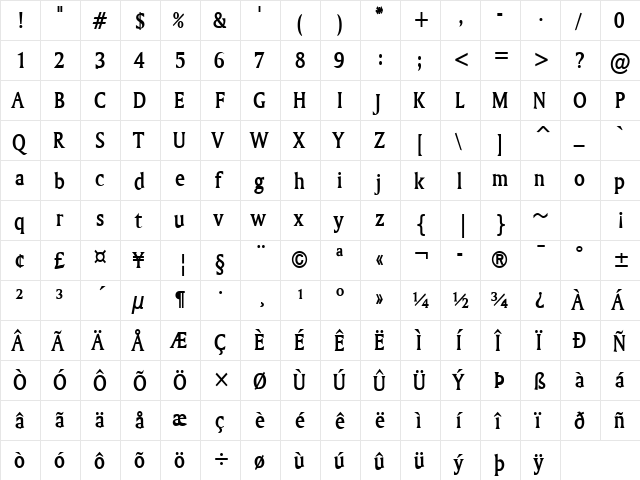
Ameretto-Condensed Bold
Design Context for Ameretto-Condensed Typeface
Ameretto-Condensed is a composed and adaptable typeface that performs quietly and consistently across a wide range of design contexts. The heavy weight commands attention and anchors typographic hierarchies. The condensed width makes it efficient for tight spaces without sacrificing legibility.
Pro Tip: Pair Ameretto-Condensed with a font of contrasting weight or personality to build a more expressive typographic hierarchy.